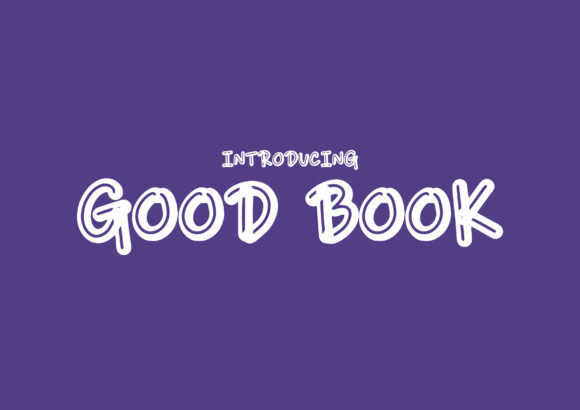
Discover the Delightful World of Good Books Font
Are you a designer, crafter, or educator looking for a font that embodies the spirit of childhood wonder and playfulness? Look no further than Good Books Font, a super fun, quirky, and child-themed display font that’s perfect for any children’s activity or school project. In this article, we’ll dive into the world of Good Books Font, exploring its unique features, uses, and benefits.
What is Good Books Font?
Good Books Font is a display font designed to capture the essence of childhood imagination and creativity. With its playful and authentic feel, this font is ideal for projects that require a fun and youthful touch. Whether you’re creating materials for a children’s party, designing a logo for a kids’ activity center, or crafting educational resources for a school project, Good Books Font is the perfect choice.
Key Features of Good Books Font
• Playful and Quirky: Good Books Font boasts a unique and whimsical design that’s sure to capture the attention of children and adults alike.
• Child-Themed: This font is specifically designed with children in mind, making it perfect for projects that require a youthful and energetic feel.
• Display Font: Good Books Font is a display font, meaning it’s designed to make a statement and be noticed.
• Authentic: This font embodies the spirit of childhood authenticity, making it perfect for projects that require a genuine and heartfelt touch.
Uses for Good Books Font
Good Books Font is a versatile font that can be used in a variety of projects, including:
• Children’s Party Materials: Create invitations, banners, and other party materials that will delight kids and parents alike.
• Kids’ Activity Centers: Design logos, brochures, and other marketing materials that showcase the fun and playful spirit of your activity center.
• School Projects: Use Good Books Font to create educational resources, such as worksheets, posters, and presentations, that will engage and inspire students.
• Crafting and DIY Projects: Add a touch of whimsy and fun to your crafting and DIY projects, such as signs, labels, and cards.
Benefits of Using Good Books Font
By using Good Books Font, designers, crafters, and educators can enjoy a range of benefits, including:
• Instant Recognition: Good Books Font is a unique and eye-catching font that’s sure to grab attention.
• Emotional Connection: This font’s playful and authentic feel helps to create an emotional connection with children and adults alike.
• Versatility: This font can be used in a wide range of projects, making it a valuable addition to your design toolkit.
Tips for Using Good Books Font
To get the most out of Good Books Font, here are some tips to keep in mind:
• Use it Sparingly: Good Books Font is a display font, so use it sparingly to make a maximum impact.
• Pair it with Other Fonts: Experiment with pairing Good Books Font with other fonts to create a unique and visually appealing combination.
• Experiment with Colors: Don’t be afraid to experiment with different colors and textures to add depth and interest to your designs.
Good Books Font is a delightful and versatile font that’s perfect for designers, crafters, and educators looking to add a touch of childhood wonder and playfulness to their projects. With its playful and authentic feel, this font is sure to capture the attention of children and adults alike. Whether you’re creating materials for a children’s party, designing a logo for a kids’ activity center, or crafting educational resources for a school project, Good Books Font is the perfect choice.